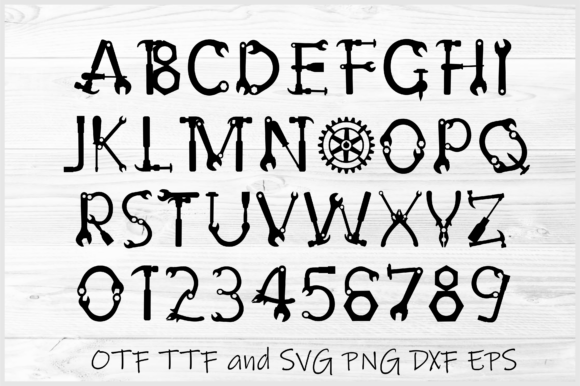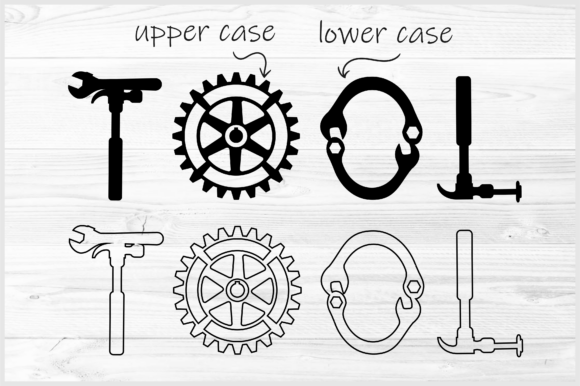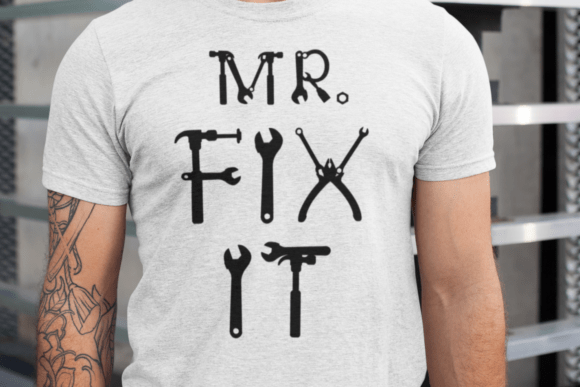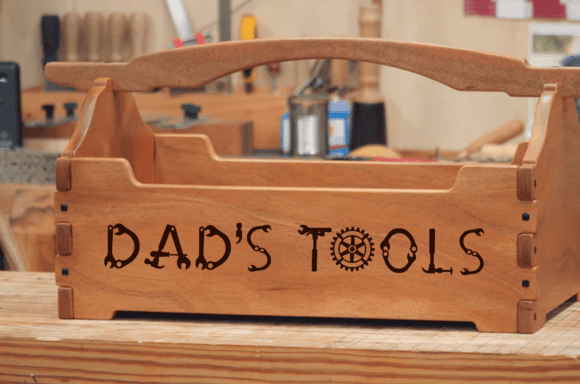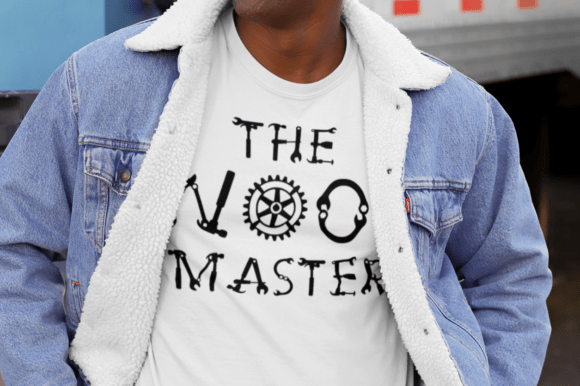
Introducing the Hand Tool Font: A Creative Craft Typeface for DIY Enthusiasts
Are you a DIY enthusiast, a crafter, or a designer looking for a unique and creative way to express your passion for handmade projects? Look no further than the Hand Tool Font, a decorative typeface that embodies the spirit of craftsmanship and creativity. Inspired by the atmosphere of the workshop and the joy of making things by hand, this font is perfect for adding a personal touch to your designs.
The Inspiration Behind the Hand Tool Font
The Hand Tool Font is more than just a typeface – it’s a celebration of the DIY spirit. Each letter is carefully crafted from tool silhouettes, giving your design character, strength, and originality. The font’s creator aimed to capture the essence of the workshop, where creativity and functionality come together. The result is a bold and creative typeface that is sure to inspire your next DIY project.
Key Features of the Hand Tool Font
- Unique Design: Each letter is built from tool silhouettes, including hammers, wrenches, gears, and more, giving your design a distinctive and creative look.
- Versatile Use: Perfect for personalized toolboxes, signs, logos, gifts, and unique DIY projects, this font is ideal for designers, crafters, and DIY enthusiasts.
Perfect for DIY Projects and Designs
Whether you’re working on a woodworking project, creating handmade gifts, or designing signs and logos, the Hand Tool Font is the perfect choice. Its bold and creative design adds a personal touch to any project, making it stand out from the crowd. Imagine adding a customized label to your toolbox or creating a unique sign for your workshop – the Hand Tool Font makes it possible.
With the Hand Tool Font, your creative possibilities are endless. Use it to:
- Create personalized toolboxes and workshop signs
- Design unique gifts for DIY enthusiasts and crafters
- Develop logos and branding materials for your craft business
- Add a creative touch to your DIY projects and handmade crafts
Why Choose the Hand Tool Font?
In a world where digital designs dominate, the Hand Tool Font offers a refreshing change. Its unique design and versatility make it an excellent choice for designers and crafters looking to add a personal touch to their projects. By choosing the Hand Tool Font, you’re not just selecting a typeface – you’re embracing the DIY spirit and the joy of creating something with your own hands.